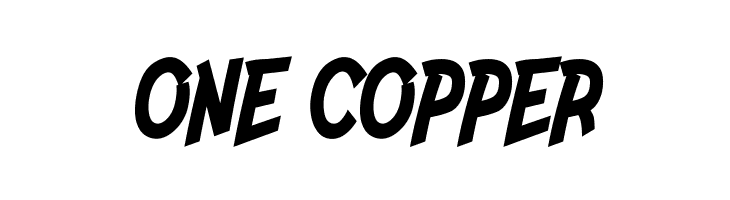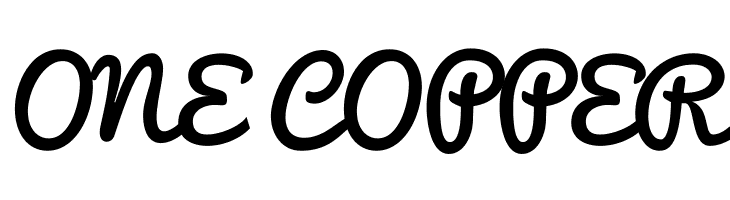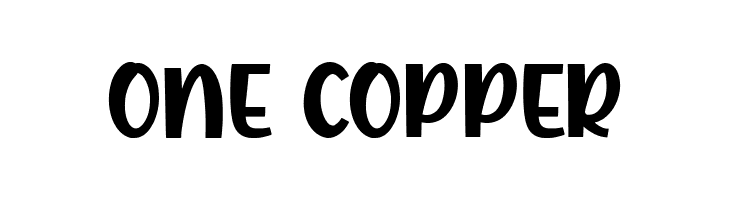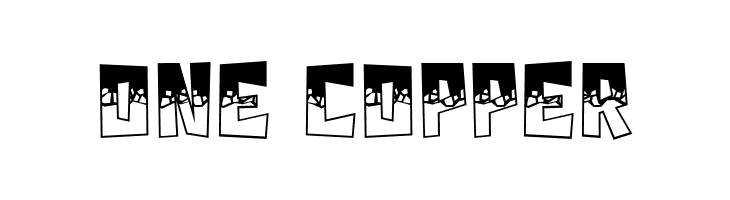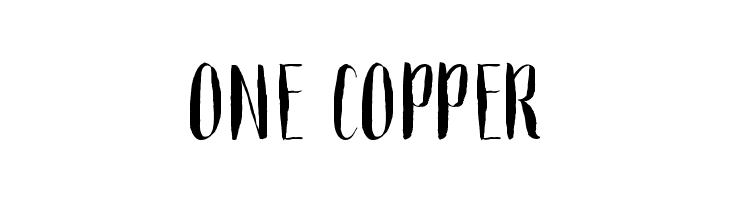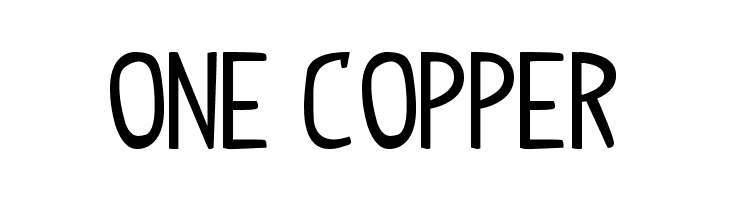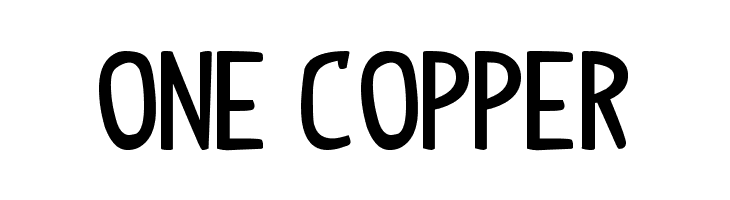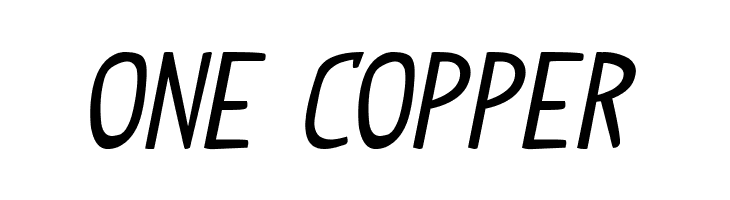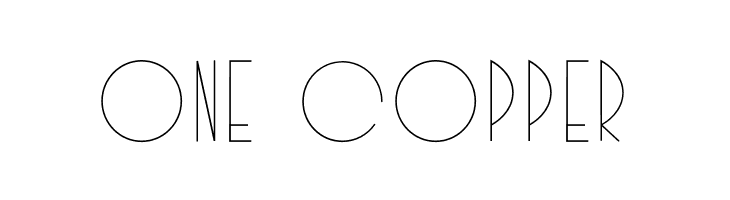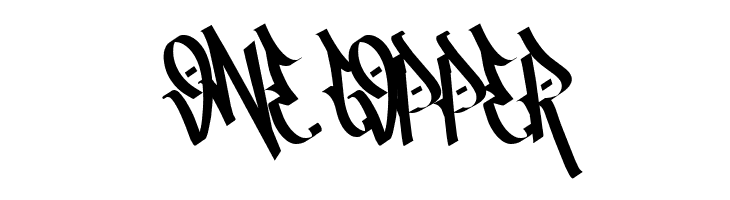
( Southype - Rodrigo Gonzalez - www.southype.com )
A modern, minimalist font with rounded edges and uniform stroke width.
( Fonts by Paul Reid - tracertong.co.uk )
A bold, geometric font with squared edges and a modern, industrial feel.
( Fonts by Lettersiro Studio )
A bold, geometric font with angular, crystal-like shapes.
A whimsical, decorative font with elegant swirls and curls.
( Fonts by Balpirick Studio )
A bold, playful font with rounded edges and a modern style.
( Fonts by Manuel Ramos )
A sleek, modern font with elongated, narrow letterforms and a sophisticated appearance.
A modern, elegant font with tall, slender uppercase characters and a geometric structure.
( Font by http://home.luna.nl/~xino/ )
A bold, jagged Halloween-themed decorative font with spooky icons.
( Font by http://home.luna.nl/~xino/ )
Halloween-themed pictogram font with spooky illustrations.
A whimsical font blending serif and script styles with playful curves.
A playful and decorative font with whimsical loops and curls.
A playful, hollow font with unique loops and curls on each character.
A decorative hollow font with playful loops and rounded terminals.
A playful, decorative font with unique curls and loops, inspired by traditional Indian art.
A playful and whimsical font with rounded terminals and consistent stroke width.
( Fonts by Vít Čondák )
A bold, slanted font with dynamic and energetic characteristics.
( Fonts by Vít Čondák )
A bold, italic font with a dynamic and energetic style.
( Fonts by Press Gang Studios - Andeh Pinkard - www.pressgang-studios.com )
A playful, handwritten-style font with consistent strokes and a casual vibe.
( Fonts by Press Gang Studios - Andeh Pinkard - www.pressgang-studios.com )
A bold, playful font with a hand-drawn, informal style.
( Fonts by Press Gang Studios - Andeh Pinkard - www.pressgang-studios.com )
A dynamic, italicized font with smooth, fluid strokes and a modern feel.
A bold, modern font with a geometric and condensed style.
( Fonts by Vztype Studio )
A bold, graffiti-inspired font with dynamic, stylized characters.
( Fonts by Vztype Studio )
A bold, graffiti-inspired font with sharp, angular lines and dynamic style.
A bold, geometric font with a futuristic and modern style.
( Andrey Kochetov - www.inglobal.ru )
A modern sans-serif font with rounded edges and uniform strokes, offering excellent readability.
( Andrey Kochetov - www.inglobal.ru )
A bold, rounded font with smooth curves and a modern, approachable style.
( Andrey Kochetov - www.inglobal.ru )
A bold, italic font with smooth curves and a modern, sleek appearance.
( Andrey Kochetov - www.inglobal.ru )
A modern, italic sans-serif font with smooth curves and balanced spacing.
A bold, brush-style font with dynamic and fluid strokes.